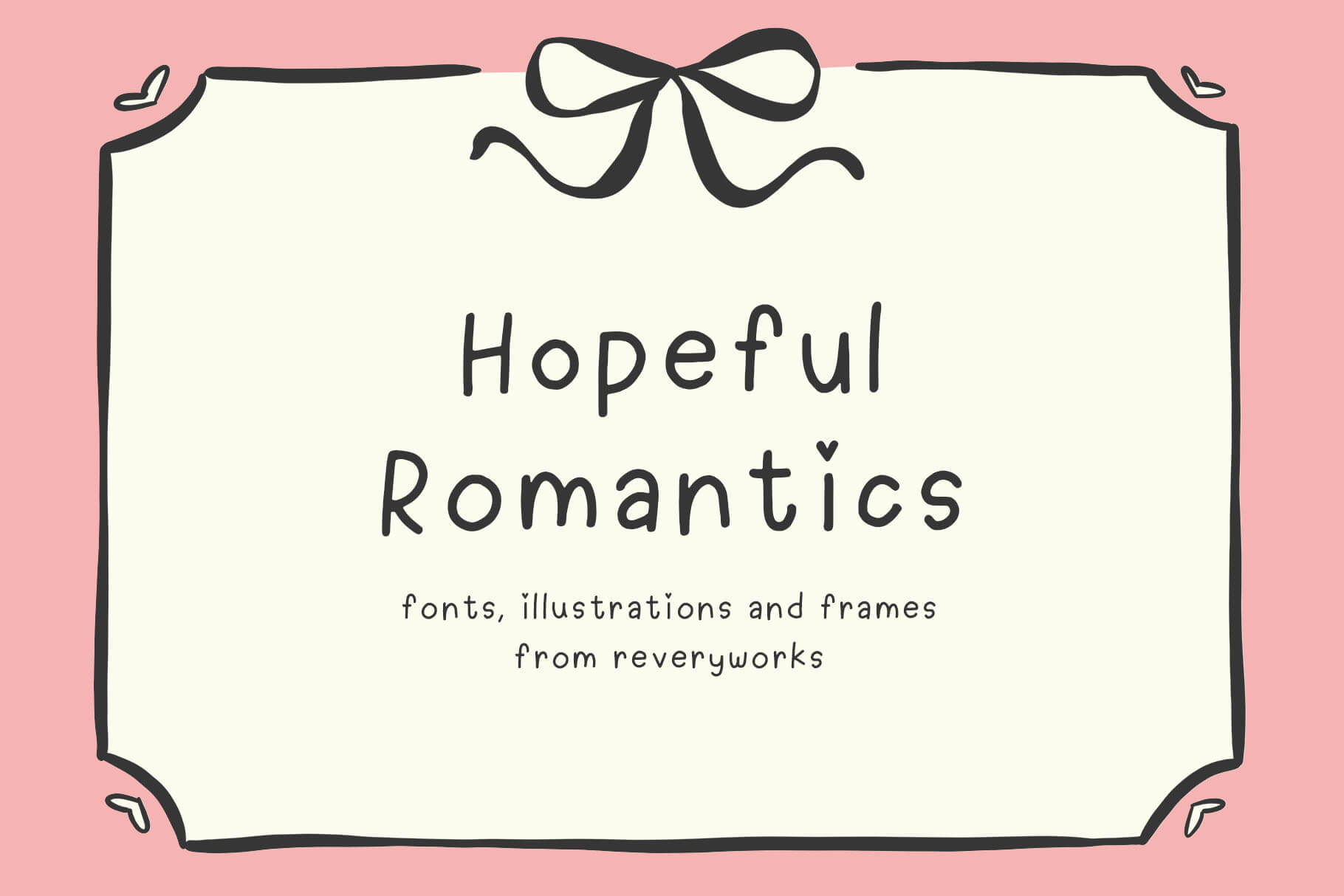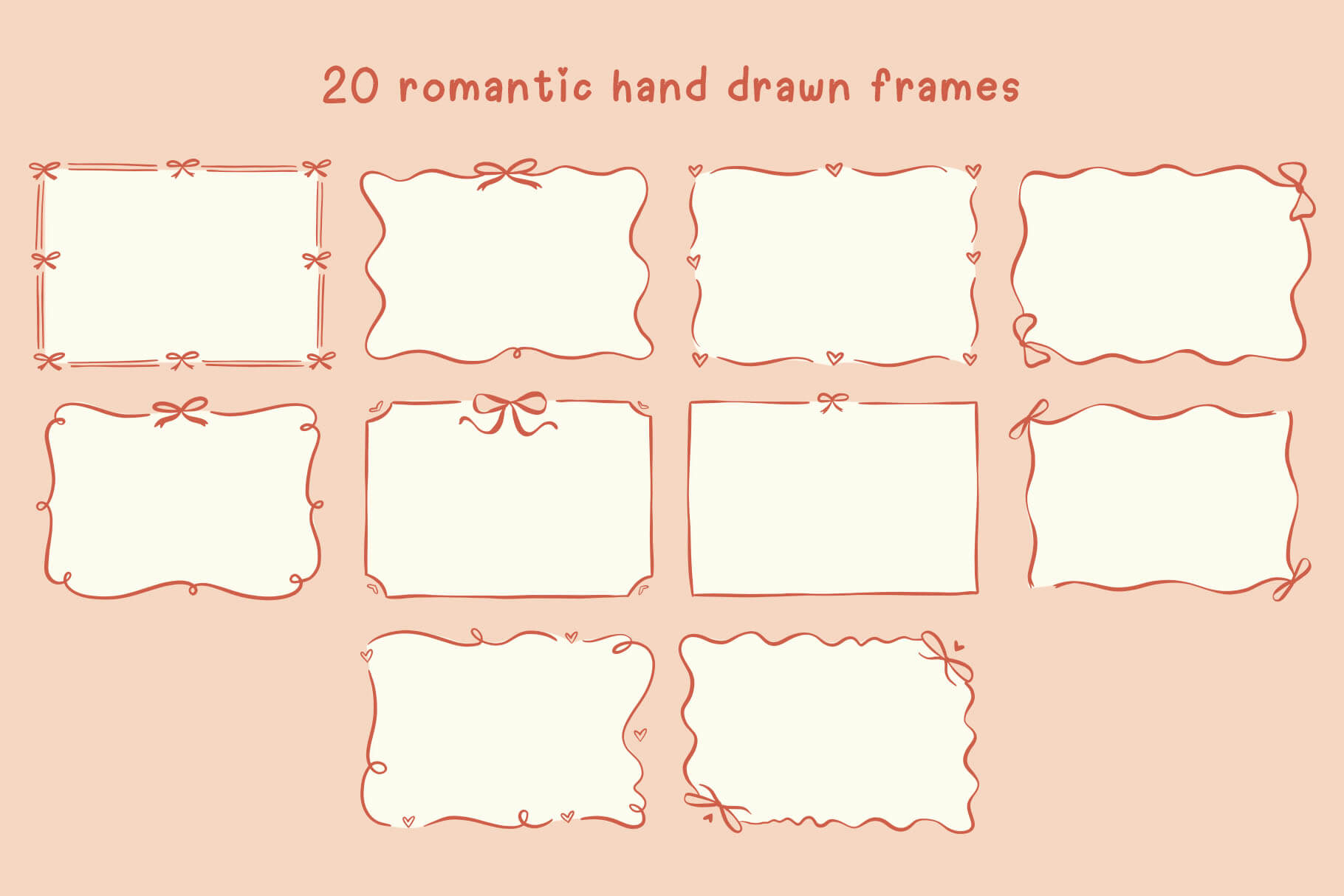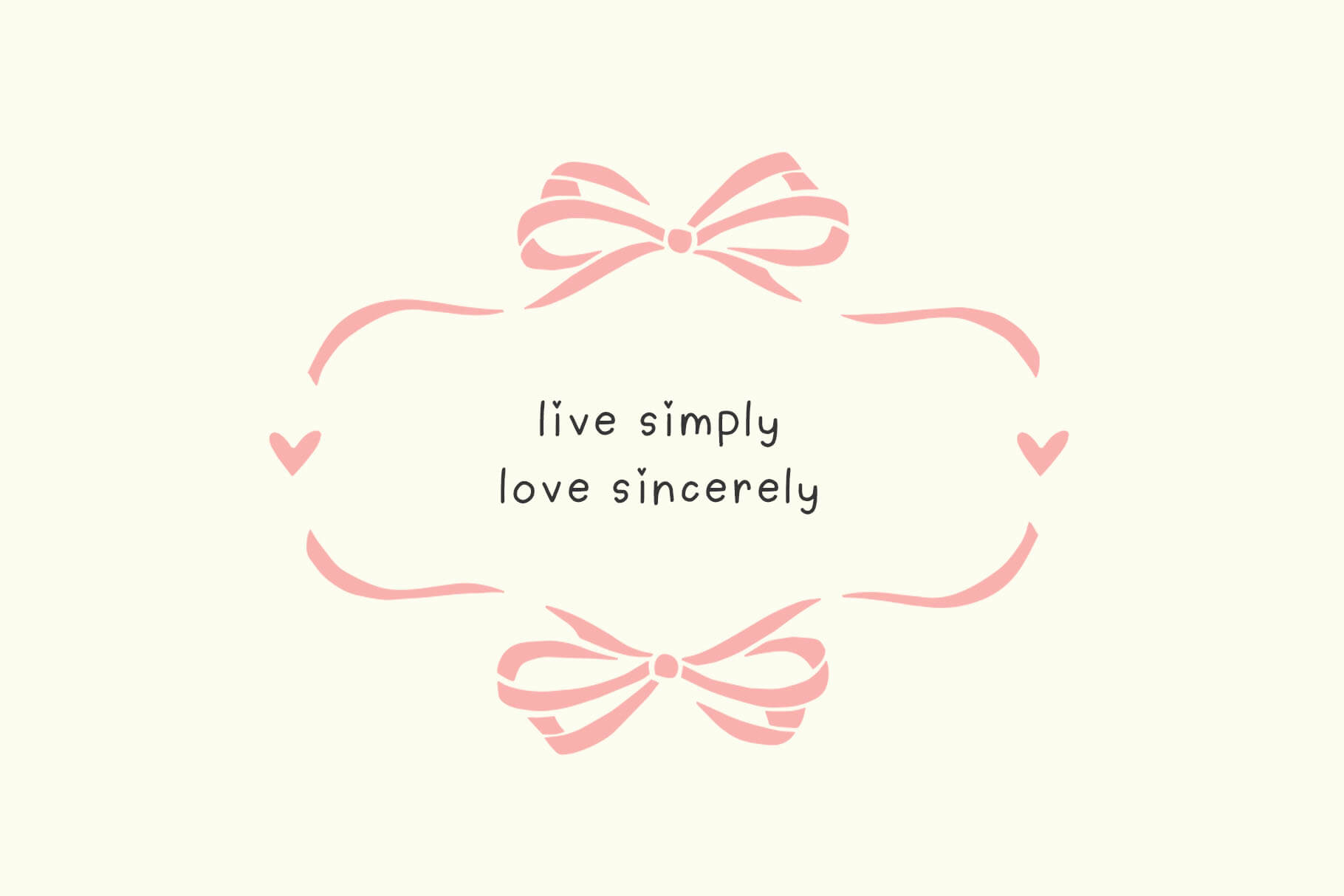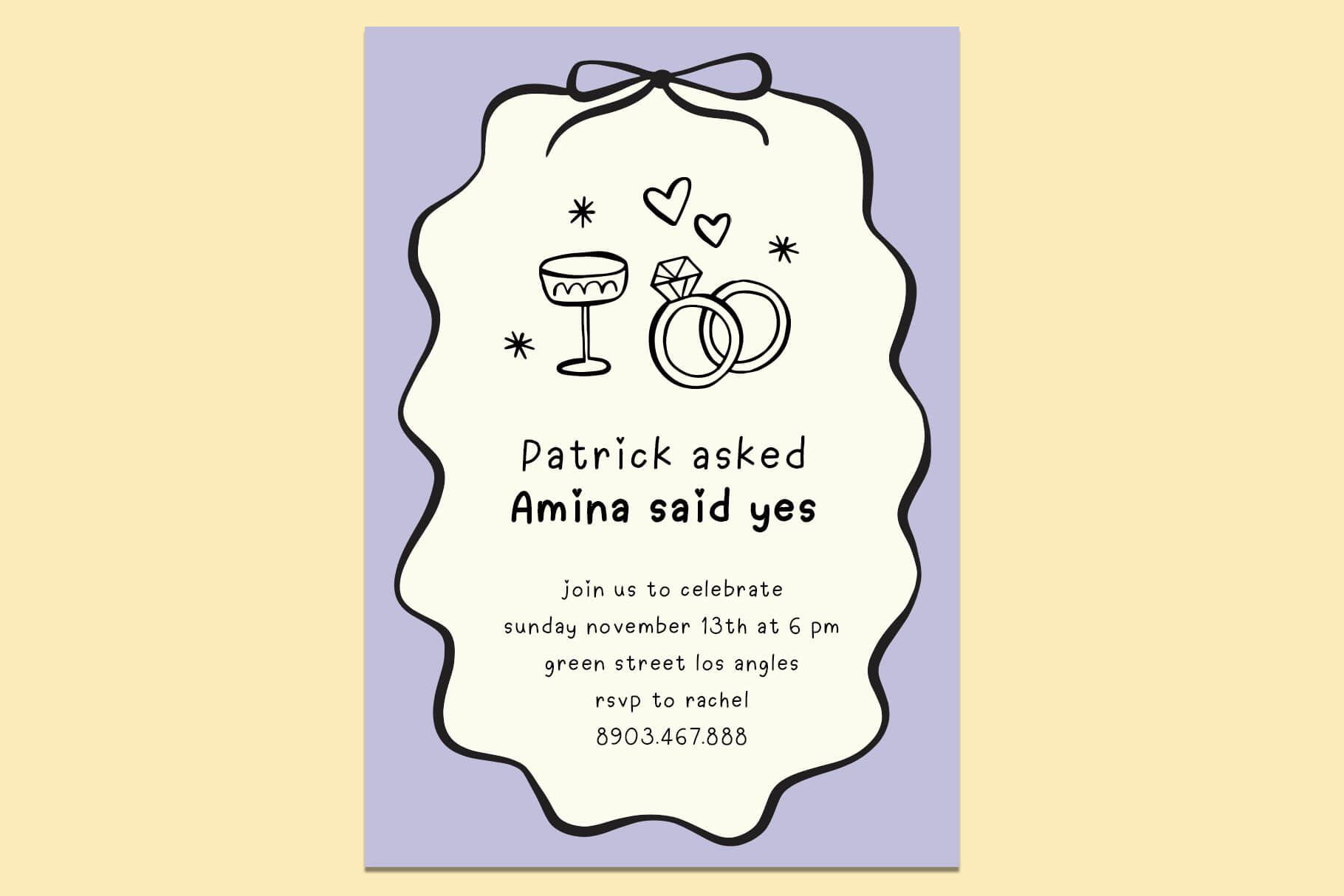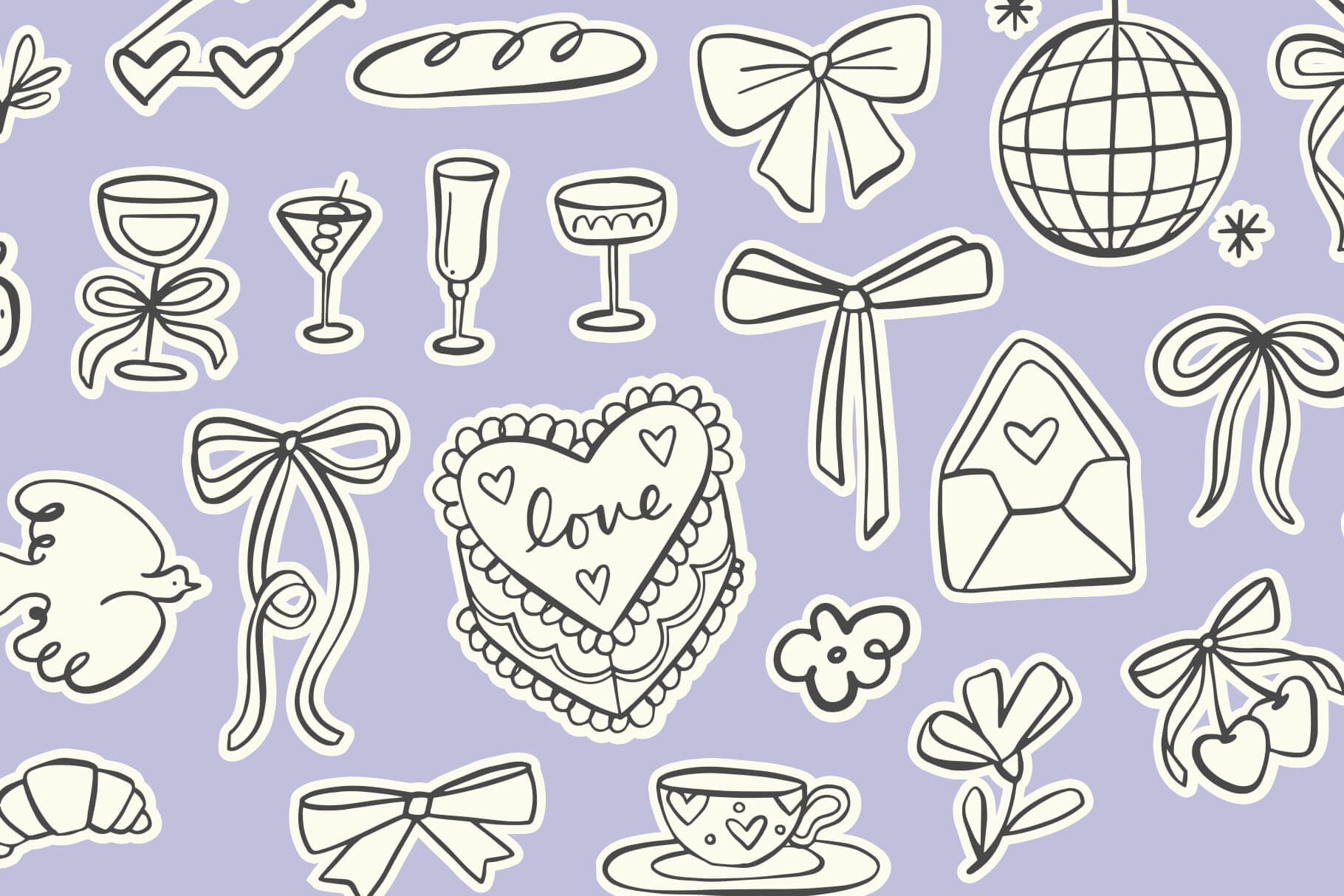
Hopeful Romantics Fonts & Extras
Introducing Hopeful Romantics! A sweet, minimal and easy to read handwritten font. Comes in 4 versions: Regular, Italic, Bold & Bold Italic. Includes matching romantic hand drawn illustrations and frames to use for your projects!
Switch between uppercase and lowercase characters to try different variations of the characters and achieve a natural, non repetitive handwritten look.